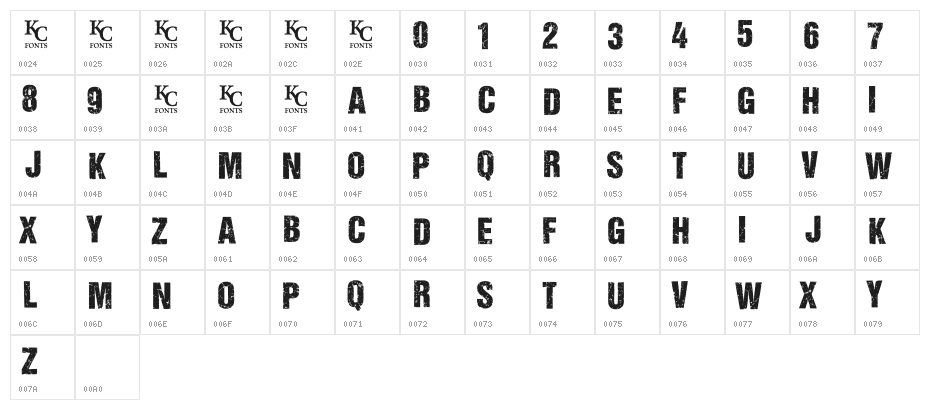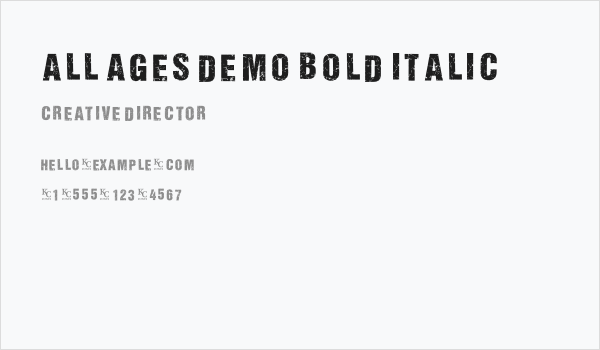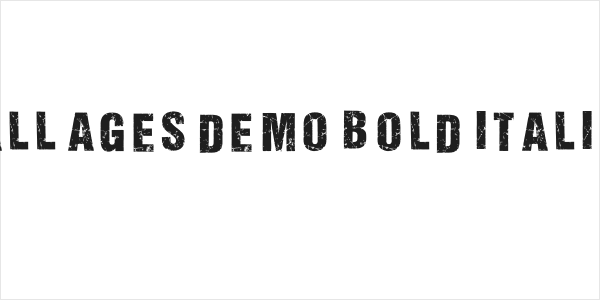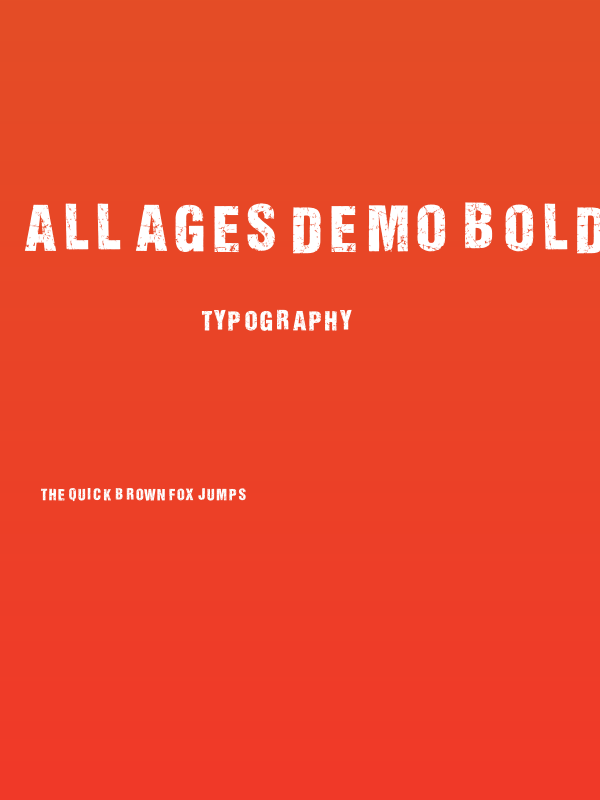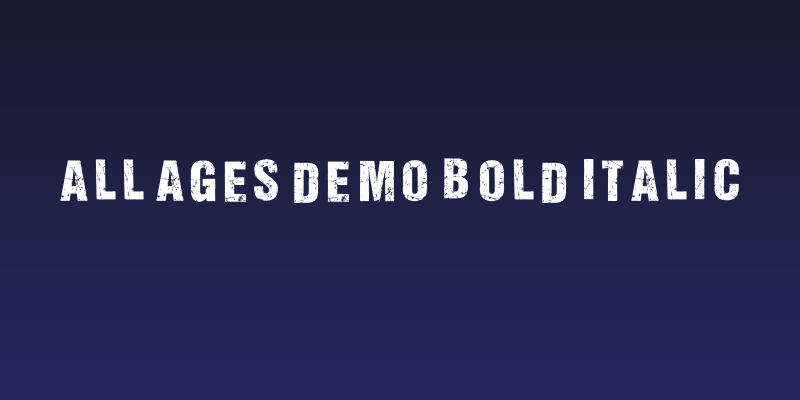
ALL AGES DEMO Bold Italic Font
ALL AGES DEMO Bold Italic Description
This font features a bold, distressed style with a rugged texture that gives it a worn, vintage appearance. The uppercase letters are prominent and impactful, making it ideal for attention-grabbing designs. The characters are evenly spaced, ensuring readability despite the textured effect. The numbers and special characters maintain the same distressed look, providing consistency across all elements. This font's boldness and unique style make it suitable for projects that require a strong, vintage aesthetic.
| Proposed Projects | Ideal for posters, album covers, branding, and any design needing a vintage or grunge aesthetic. |